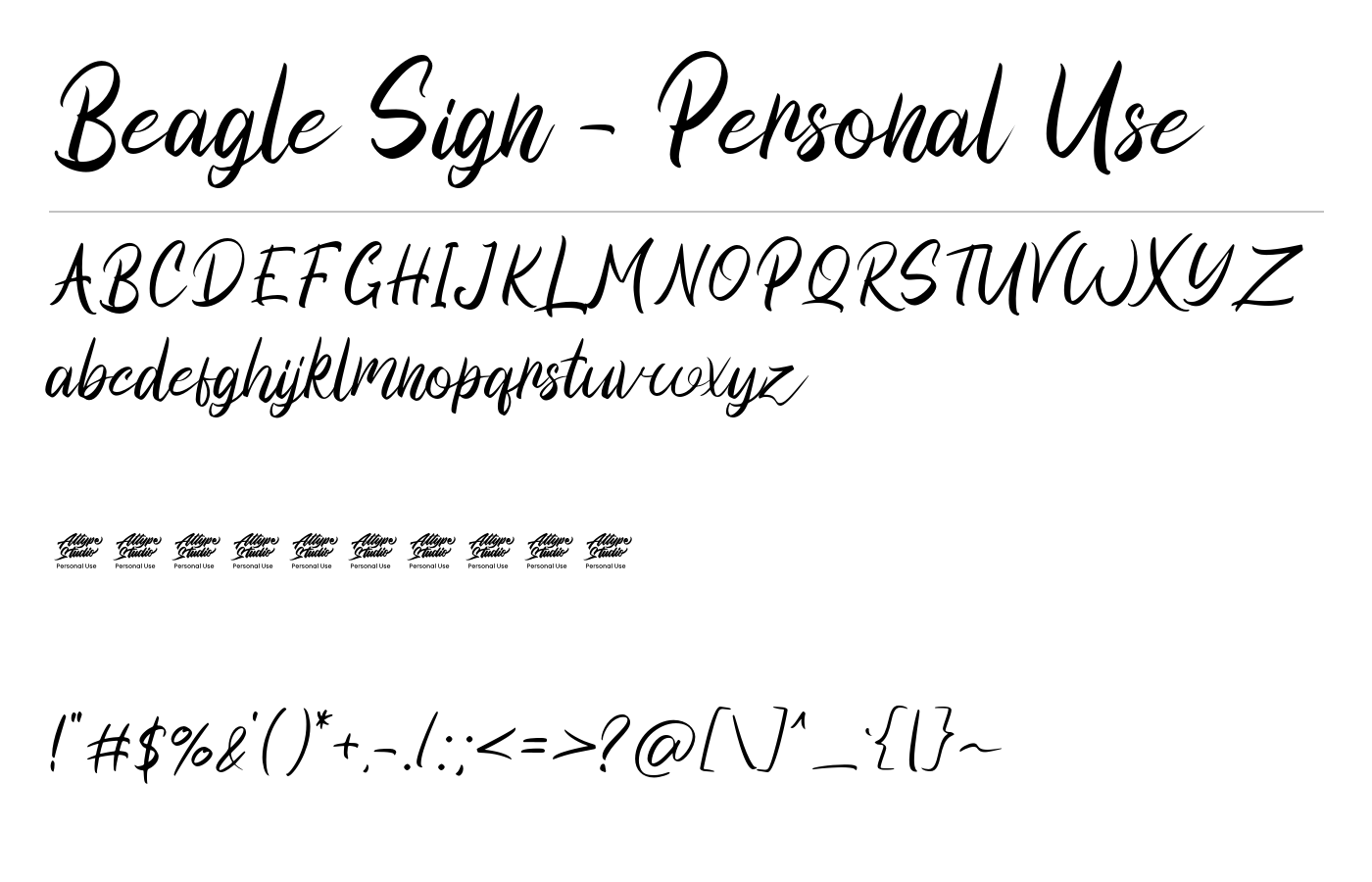
Beagle Sign is a casual, handwritten script font with a light to regular weight and a lively, playful style. Its flowing letterforms and varied stroke widths give it a personal, friendly feel, making it ideal for informal branding, invitations, and creative projects that want to convey warmth and charm. This font works well in logos, social media graphics, and headlines where a natural, approachable touch is desired.
Beagle Sign - Personal Use Font
About Beagle Sign - Personal Use Font